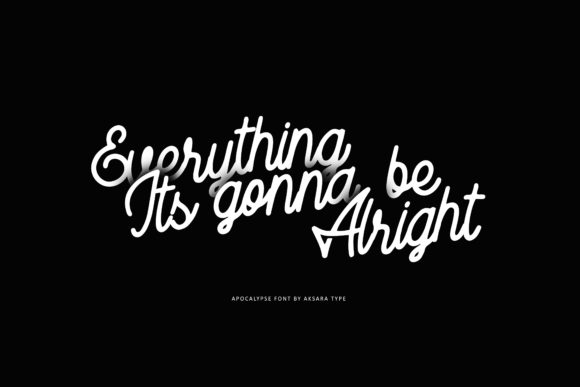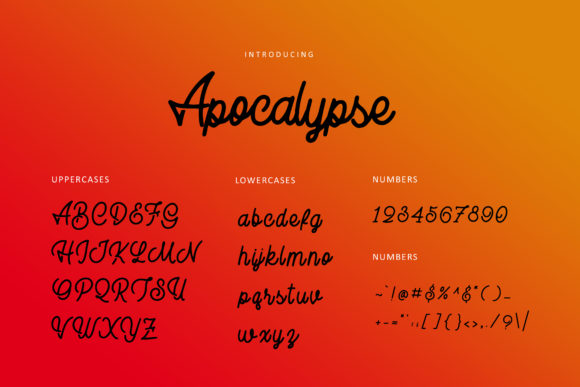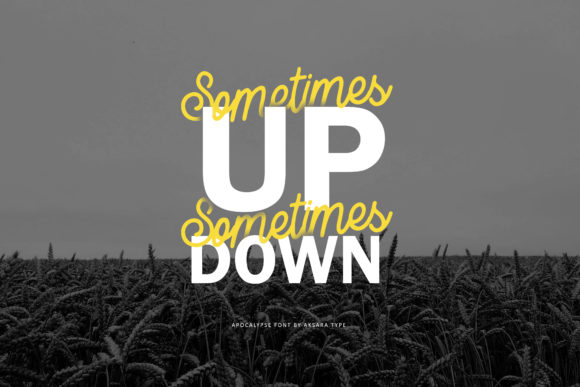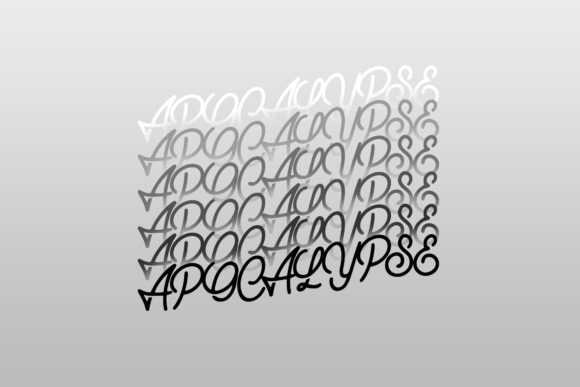
HomeScript FontsApocalypse Font Script Fonts Apocalypse Font FacebookXPinterestWhatsApp Blank paperwork template for designers. Responsive design mockup on vintage wooden background. Paper, letterhead, coffee cup, smartphone, pencil and headphones on wooden table background. Top view. Apocalypse Font Poster 2 Apocalypse Font Poster 3 Apocalypse Font Poster 4 Apocalypse Font Poster 5 About Apocalypse Font Apocalypse is a unique handwritten font with a distinctly bold feel! DOWNLOAD NOW People also explored Pumpkin Boo Font Little Plant Font Anthonio Marlay Font The Special Font Stranger Font Moluska Font Pink Christmas Font Janttung Font Bather Font 343 0 TagsApocalypse Font Previous articleWesteros FontNext articleSigna Font LEAVE A REPLY Cancel reply Comment: Please enter your comment! Name:* Please enter your name here Email:* You have entered an incorrect email address! Please enter your email address here Website: Save my name, email, and website in this browser for the next time I comment. Personal Use Free Pridaem Cooper Personal Use Free Read more about this font Santhony Personal Use Free Read more about this font Allea Sweet Personal Use Free Read more about this font Sehat Selalu Personal Use Free Read more about this font BLOG The 10 Best Handwriting Fonts to Add Personality to Your Designs 10 of the Best Handwriting Fonts for Adding Personality to Your Designs There will undoubtedly be no other better choice than handwriting fonts to give... 5 Fonts That Will Dominate Design Trends in 2026 Free vs Paid Fonts: Why Investing in Premium Fonts Is Worth It How to Install and Use Fonts on Windows, macOS, and Web Projects